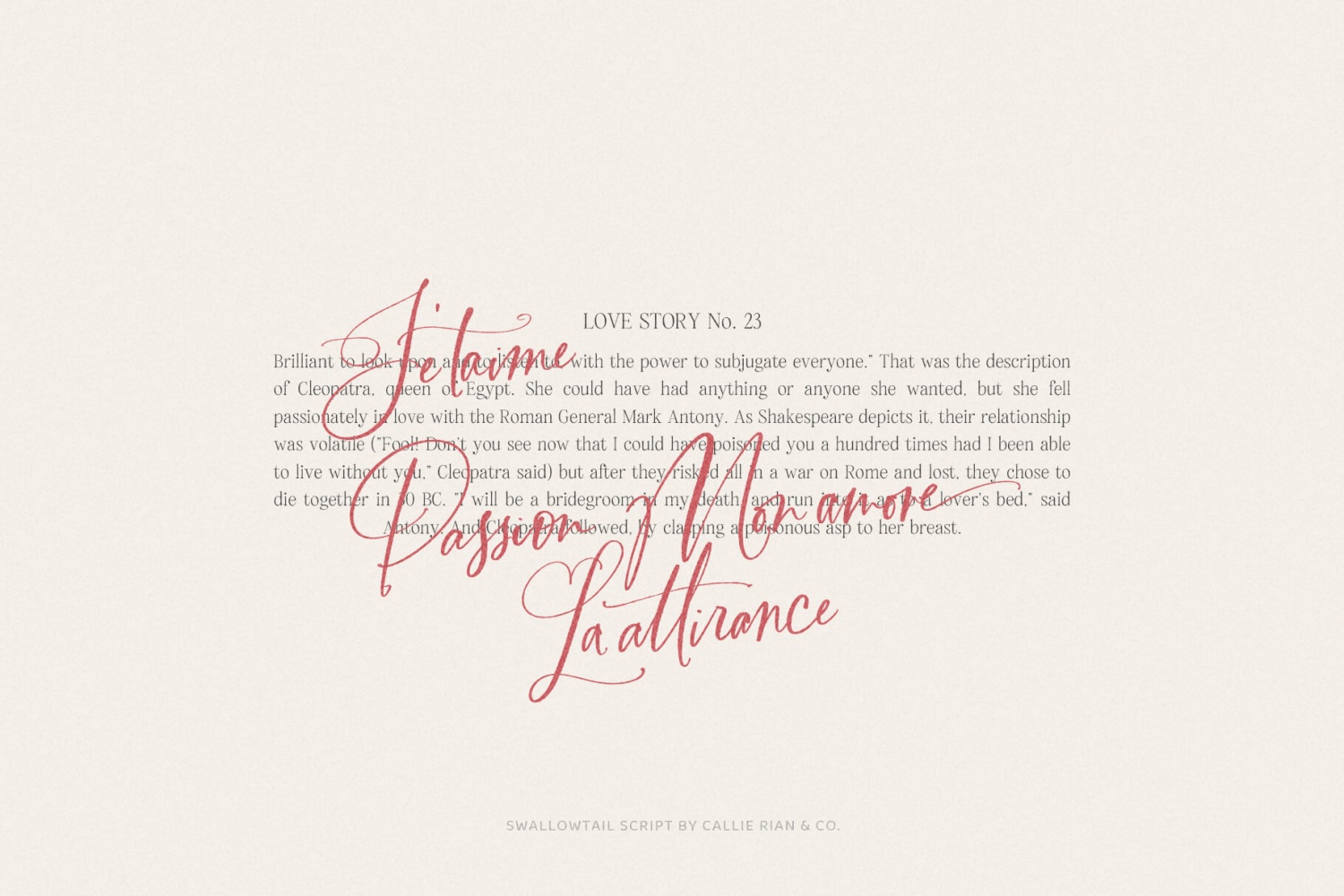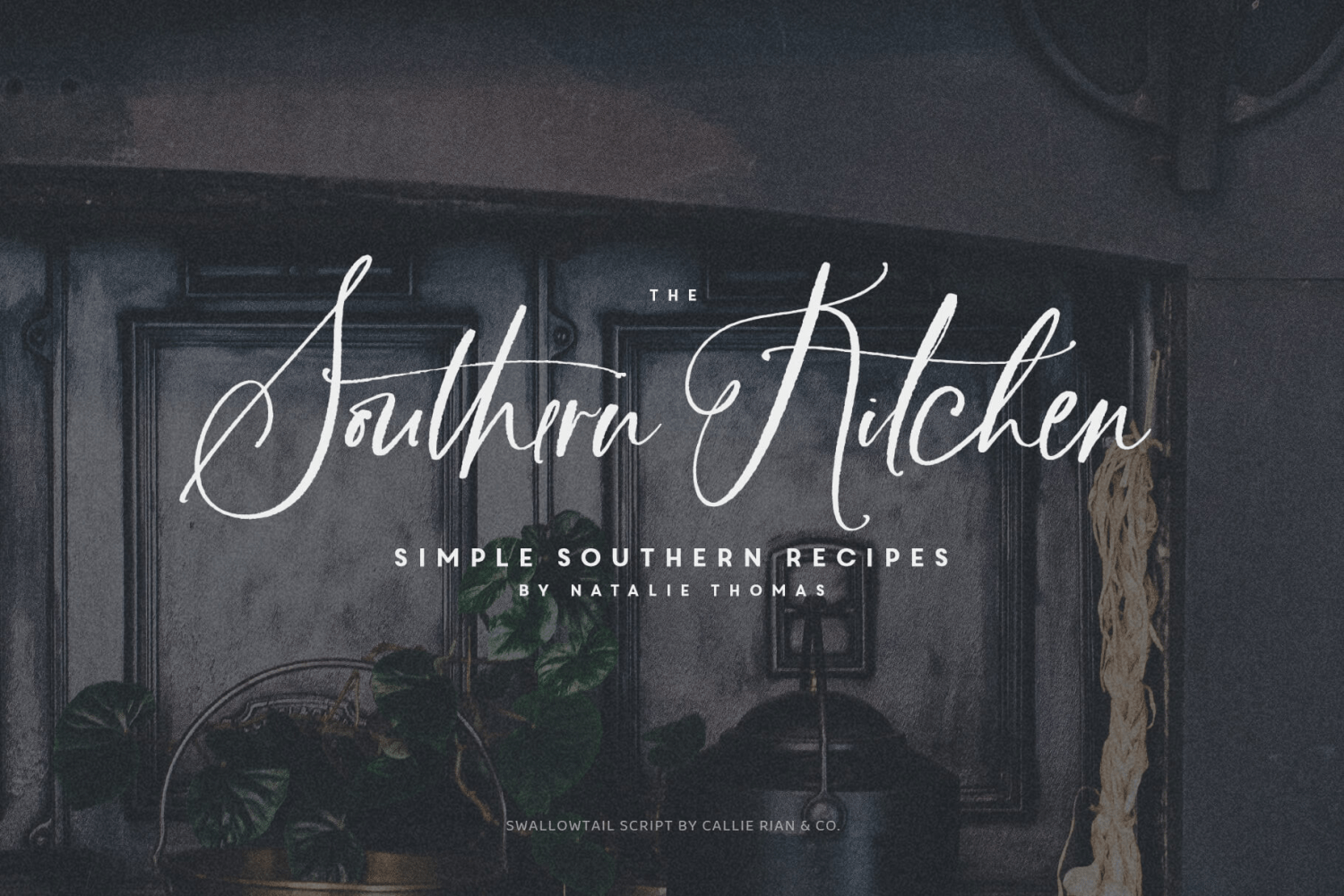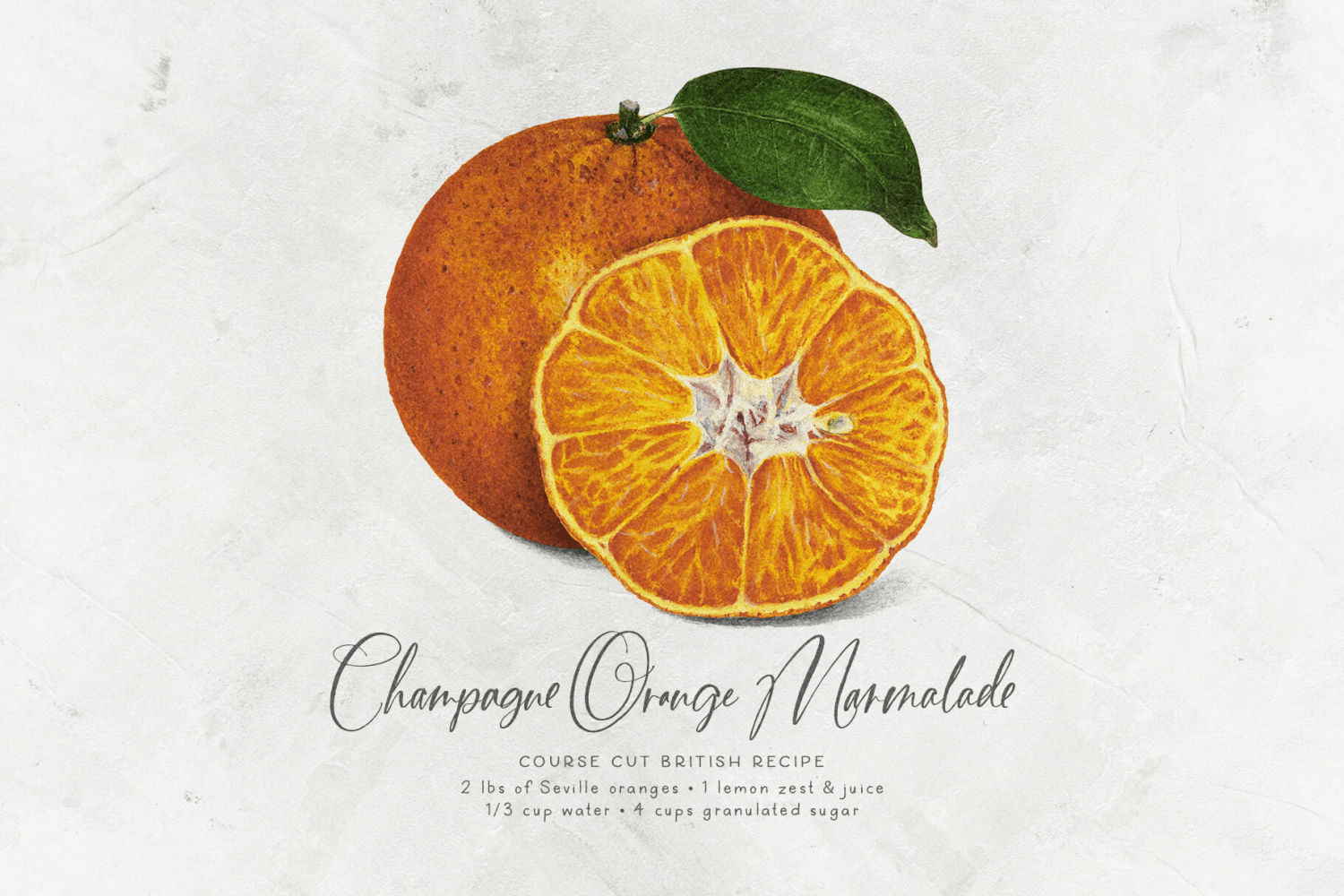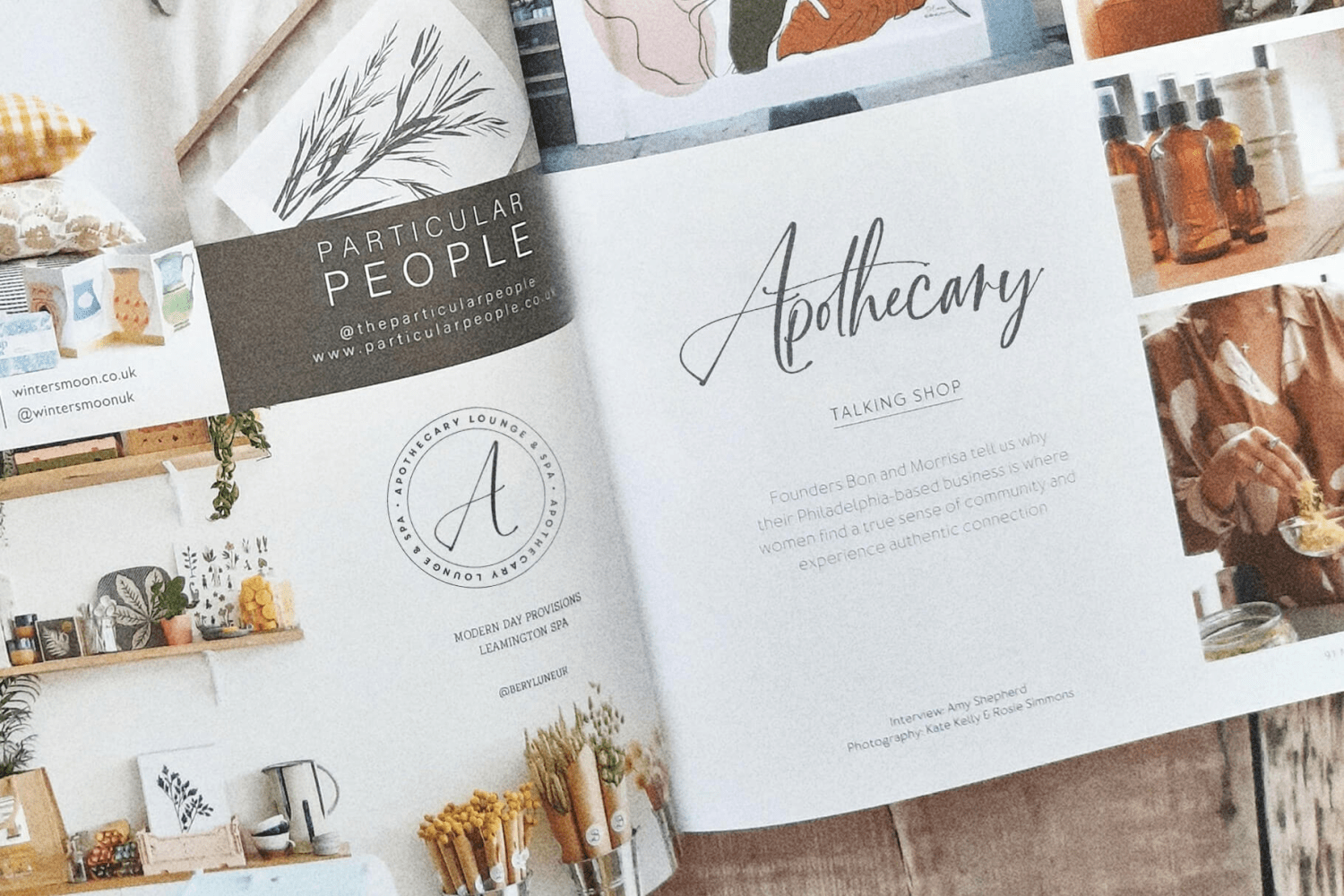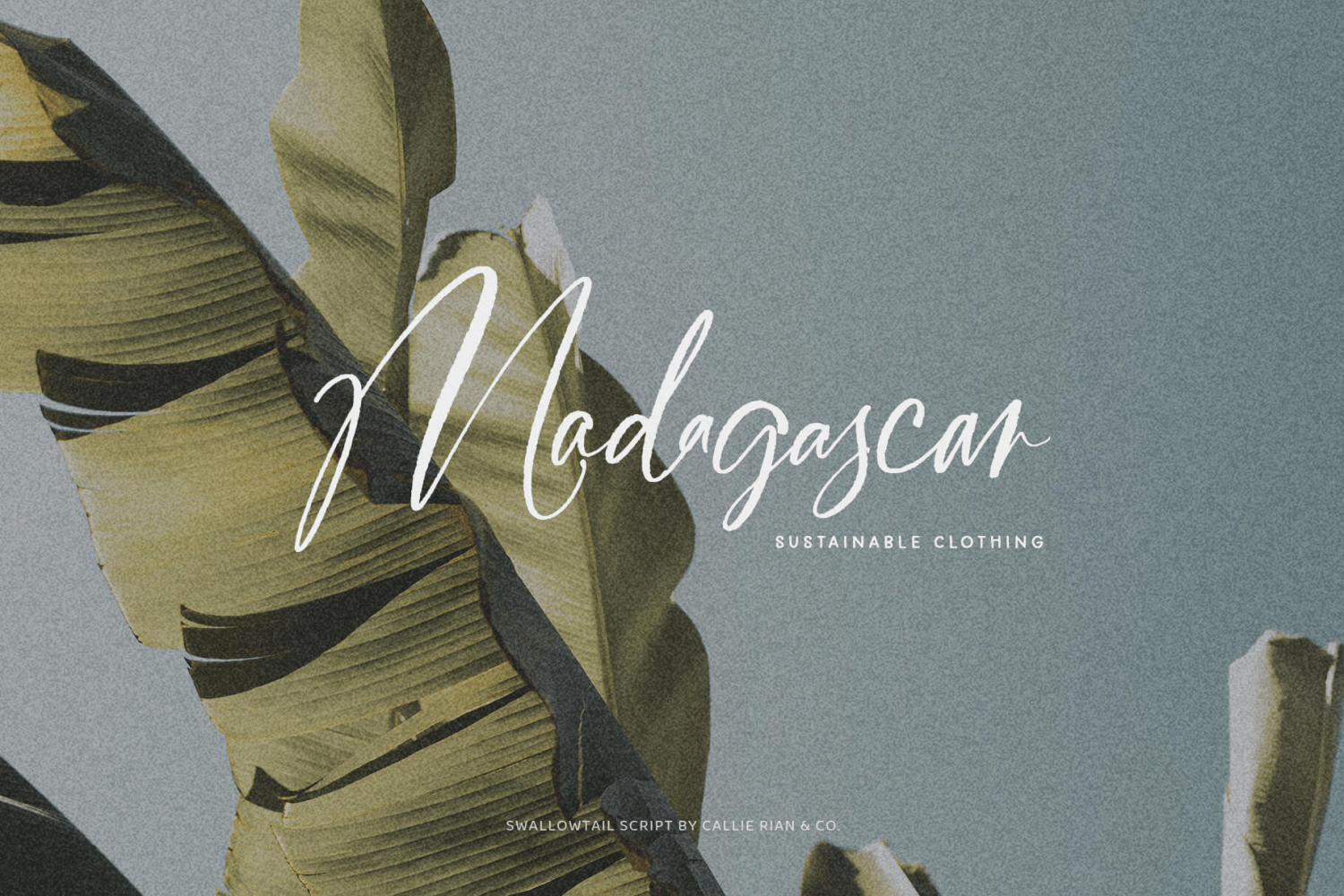
Introducing Swallowtail, a delicate modern calligraphy font with over 300 ligatures and alternates. Designed to mimic natural calligraphy handwriting, this lovely typeface is loaded with bells and whistles to make your next headline, logo or packaging…